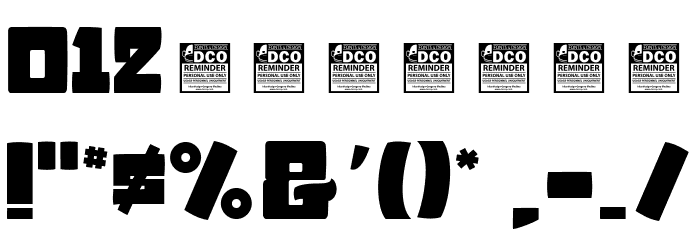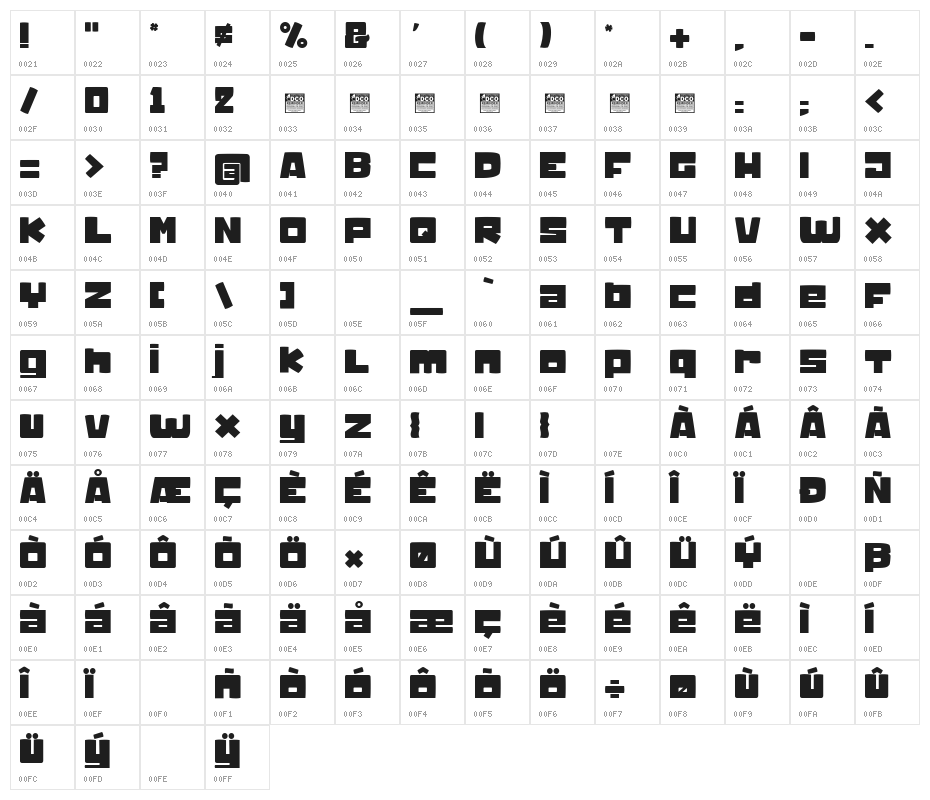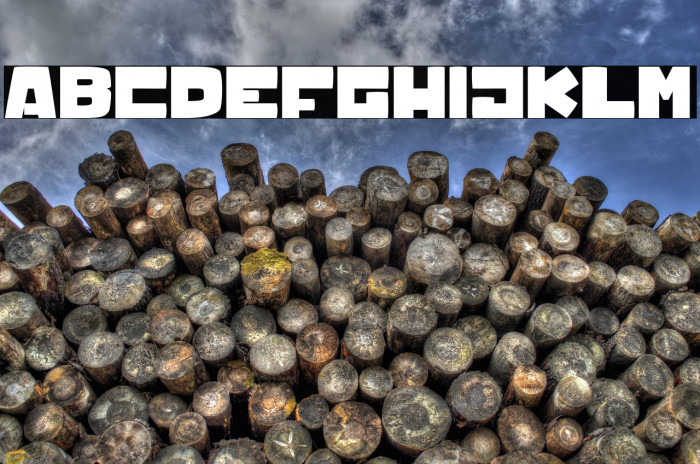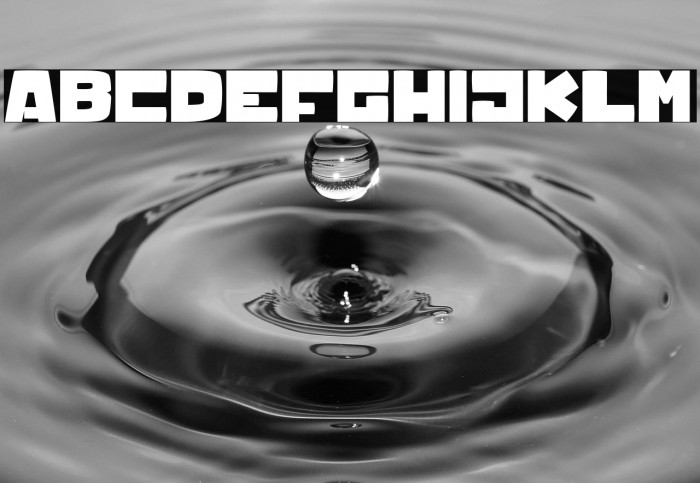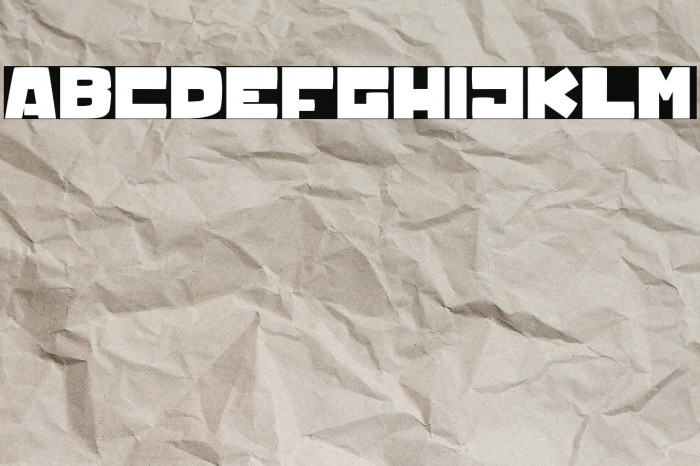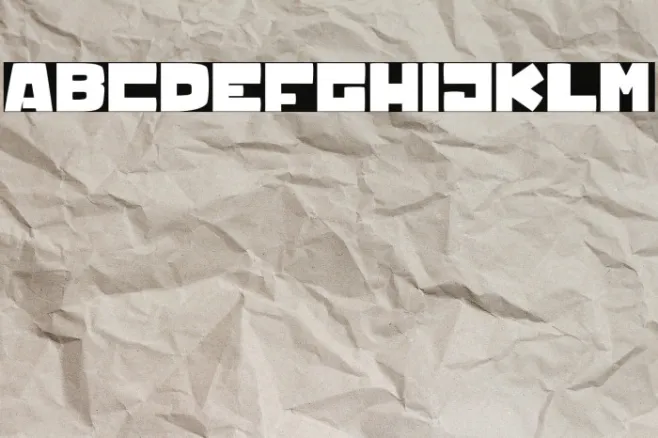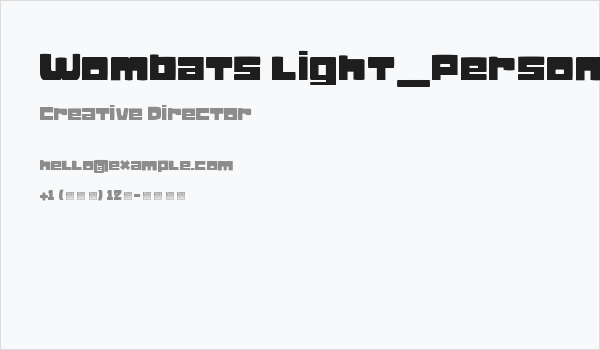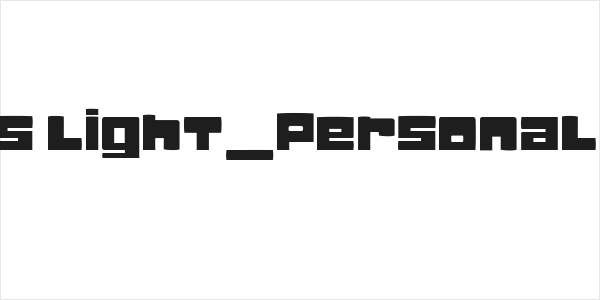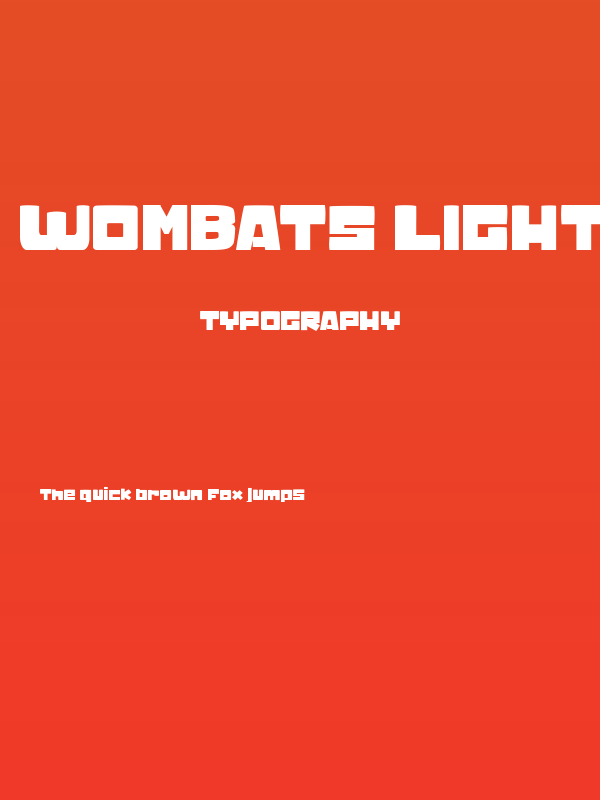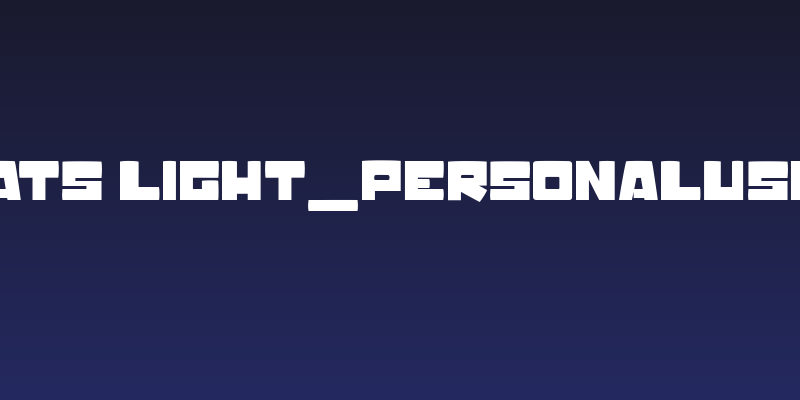
Wombats light_PersonalUseOnly Font
Wombats light_PersonalUseOnly Description
This font features a bold, geometric design with a strong presence. The characters are constructed with thick, block-like shapes, giving them a sturdy and impactful appearance. The uppercase and lowercase letters maintain a consistent style, with angular edges and a uniform thickness throughout. The numerals and special characters follow the same design principles, ensuring a cohesive look across all glyphs. This font's boldness and geometric nature make it ideal for attention-grabbing designs.
| Proposed Projects | Ideal for posters, headlines, logos, and branding materials that require a strong visual impact. |